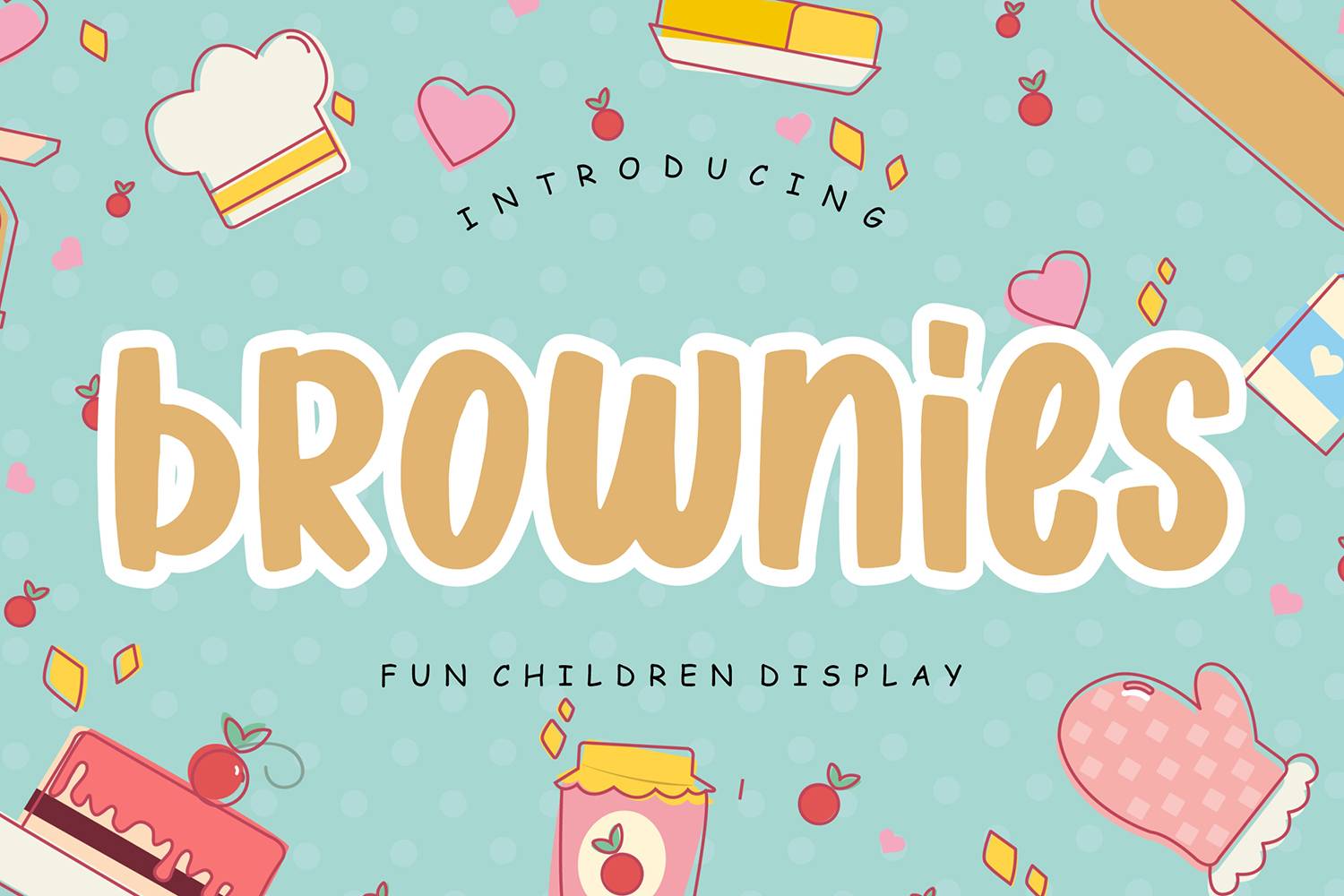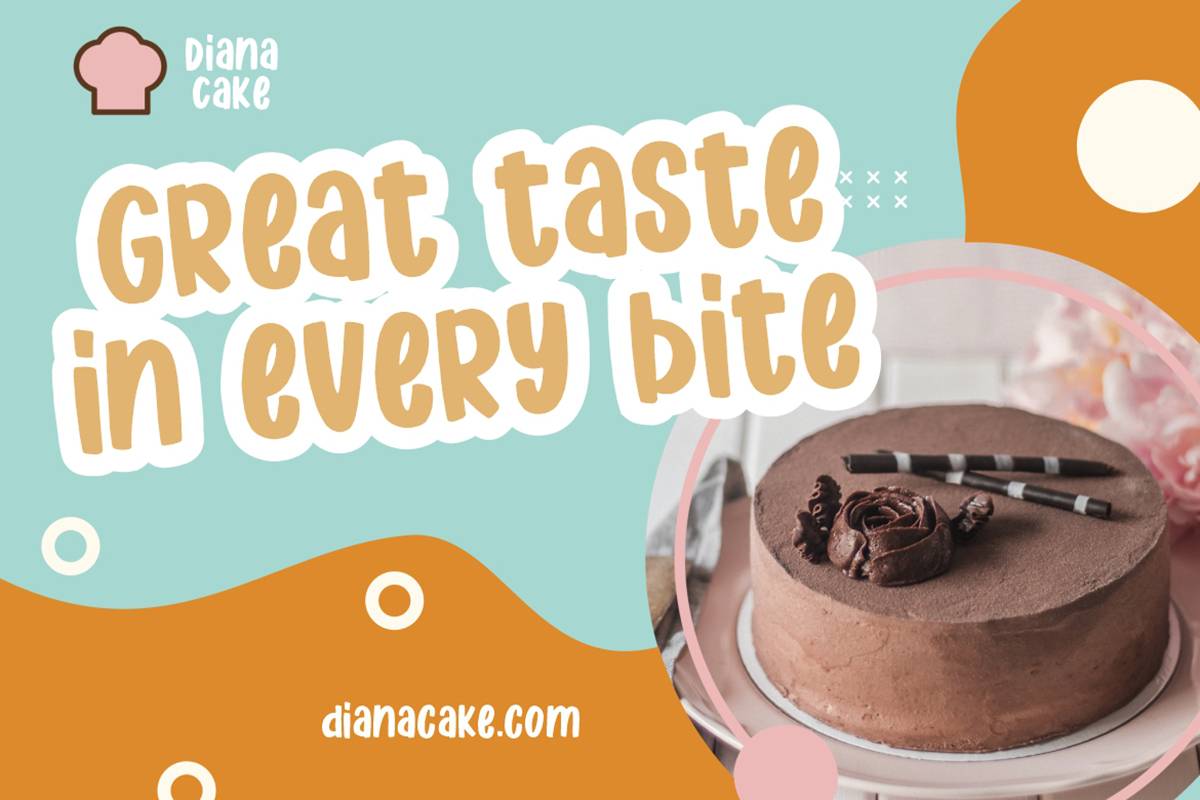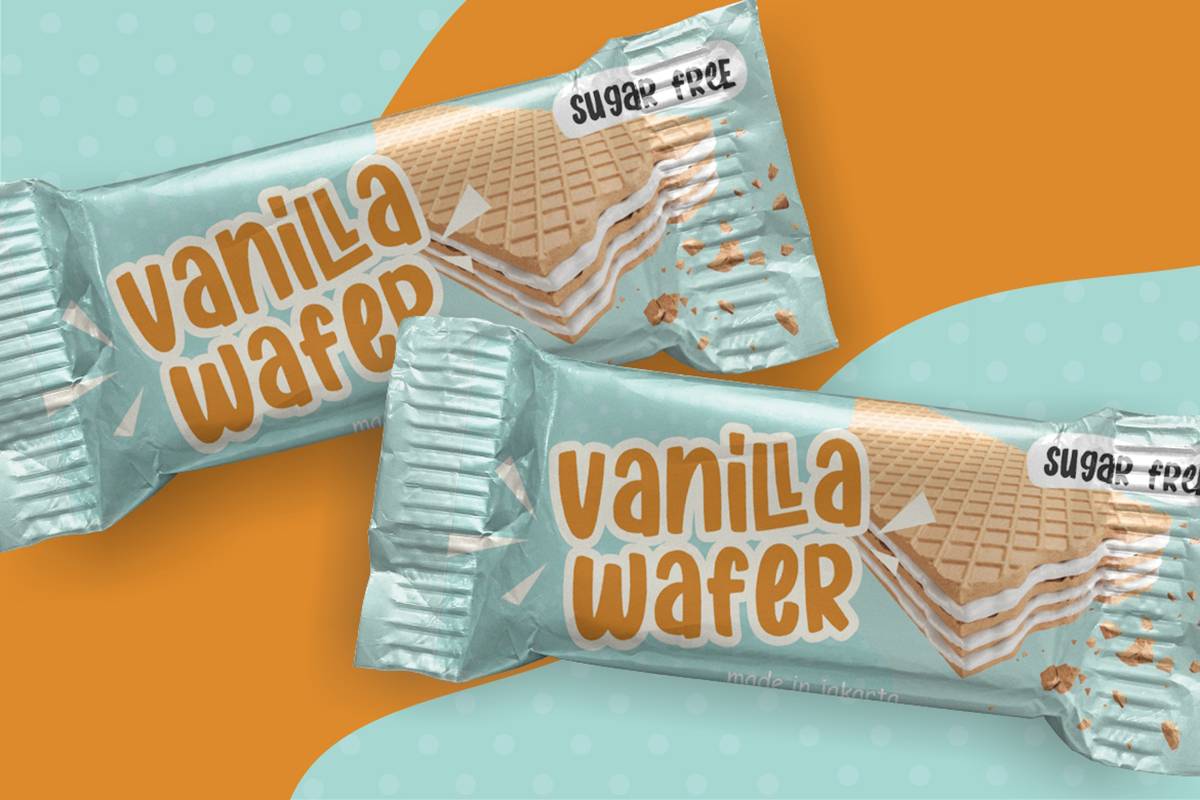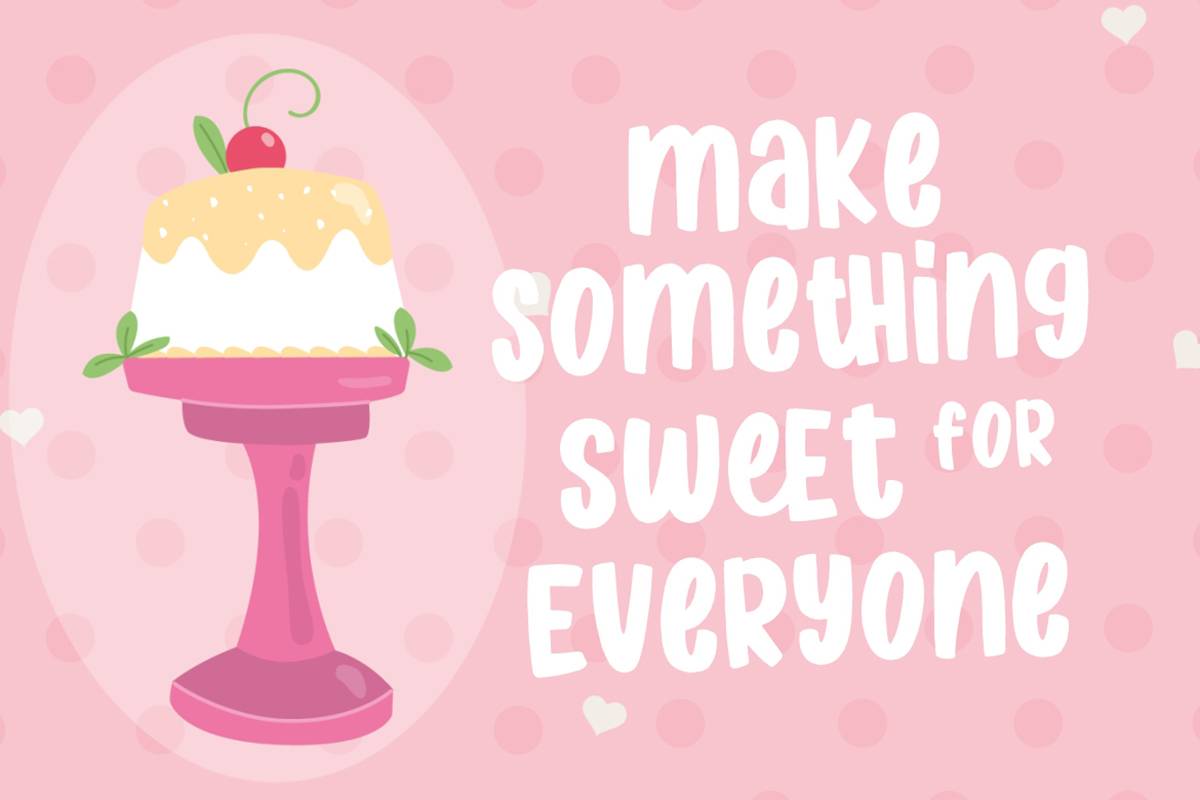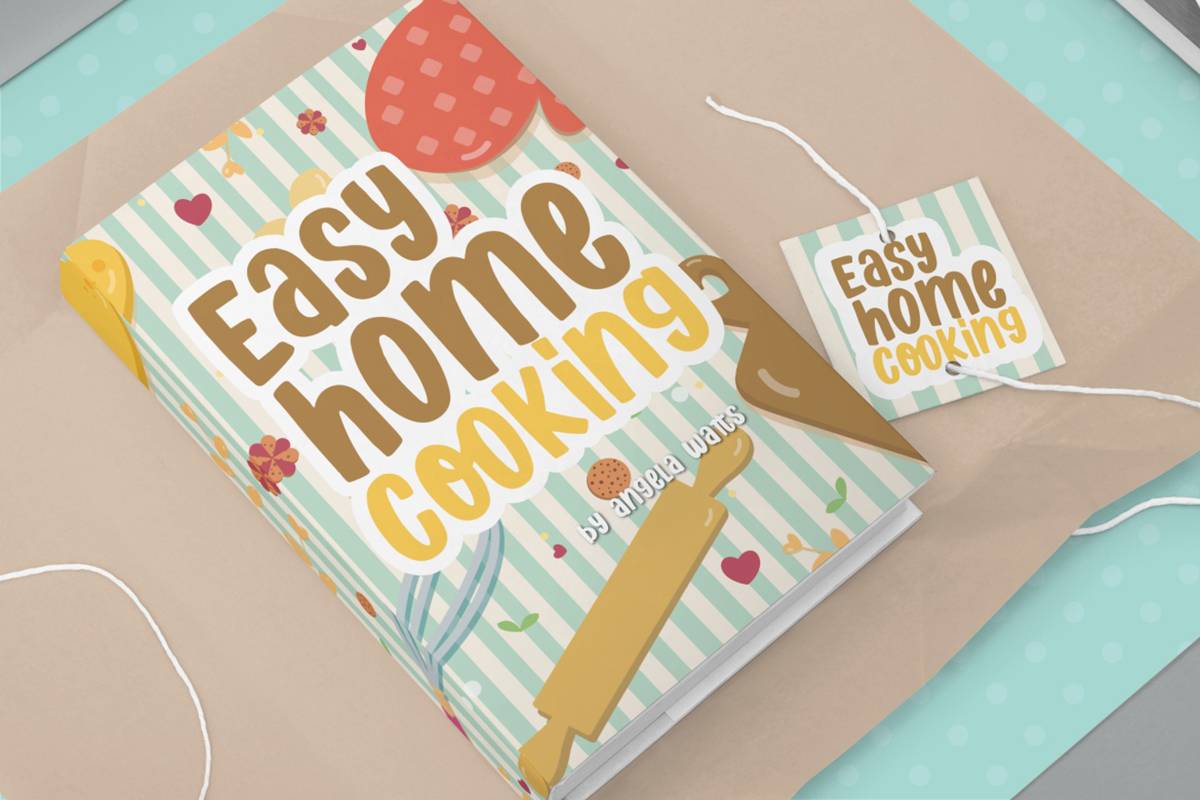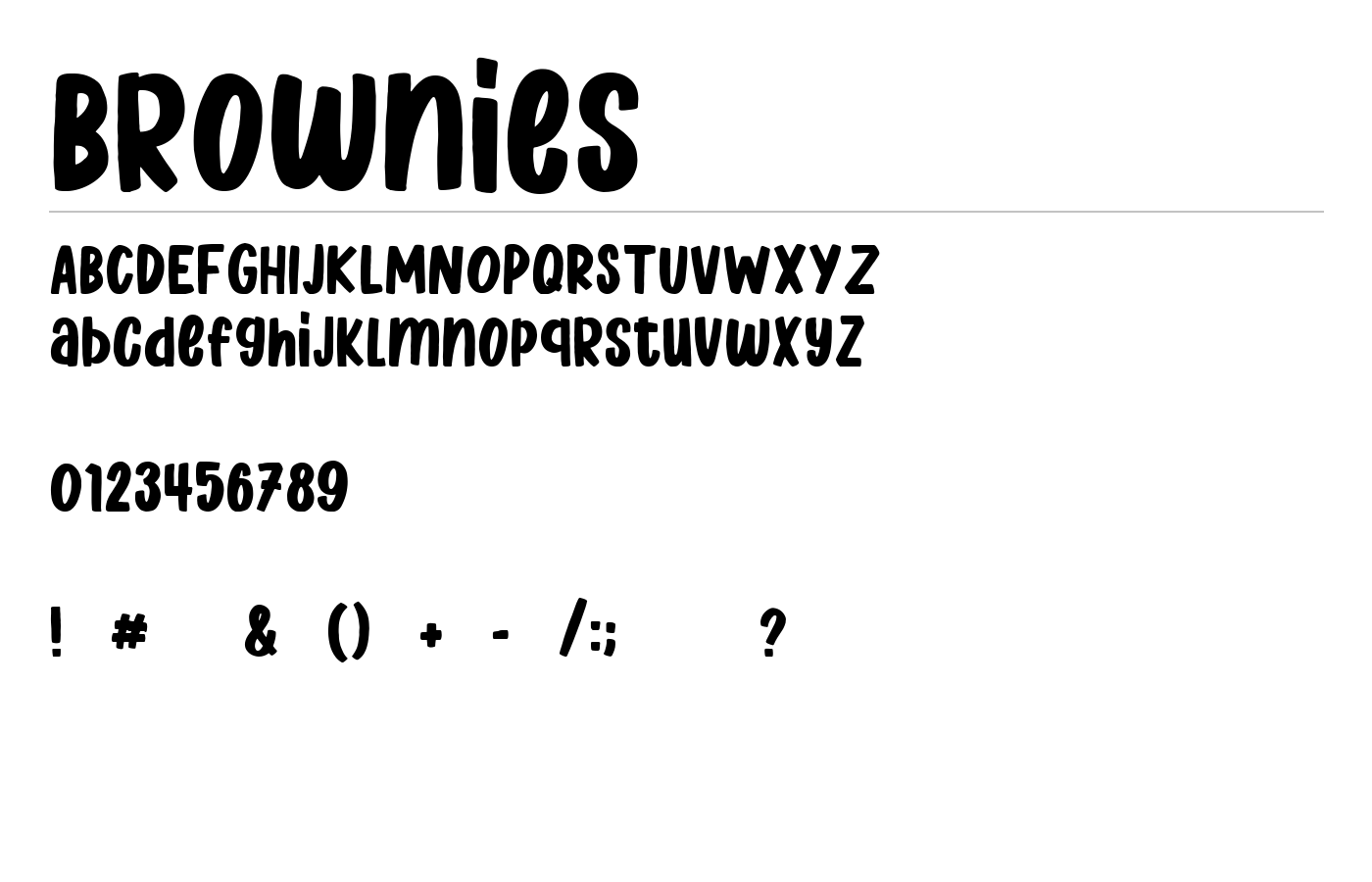
Brownies is a bold, playful sans serif font with a hand-drawn feel, featuring rounded, slightly irregular letterforms that give it a friendly and casual personality. Its tall x-height and tight spacing make it highly readable, perfect for fun and approachable branding, children's products, and informal headlines. This font works well in designs that want to convey warmth and creativity without sacrificing clarity.
Brownies Font
About Brownies Font
| Font family | Brownies Font |